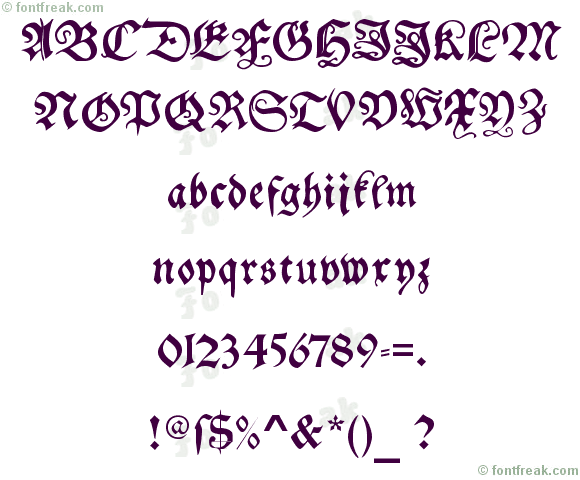
MyElectronicSchwabach
About MyElectronicSchwabach
MyElectronicSchwabach, designed by Manfred Klein, is a decorative typeface that draws inspiration from the traditional Schwabach script, infused with a modern electronic twist. This font features a distinctive, ornate style characterized by sharp angles and elaborate strokes that give it a unique flair. The stroke weight varies, showcasing a dynamic contrast that enhances its visual appeal, while the spacing is carefully balanced, ensuring readability without sacrificing aesthetic charm. The decorative elements, including pointed serifs and intricate flourishes, make it an eye-catching choice for various design applications.
This font is particularly well-suited for creative projects that require a touch of elegance and personality. It excels in use cases such as wedding invitations, where its sophisticated style can beautifully complement the romantic theme. Additionally, MyElectronicSchwabach works wonderfully for movie posters, adding a dramatic flair that captures attention and conveys a sense of intrigue. It can also enhance restaurant menus, providing an artistic touch that elevates the dining experience. Graphic designers will find this font an excellent choice for branding projects, helping to create a memorable identity that stands out in a crowded market.
The target audience for MyElectronicSchwabach includes graphic designers, small business owners, and content creators who seek a distinctive typeface to make their work more engaging. This font can easily adapt to various mediums, both digital and print, allowing for versatile applications across different platforms.
What sets MyElectronicSchwabach apart is its unique blend of traditional craftsmanship and contemporary design. It offers an artistic solution for those looking to infuse their projects with character and style. Enjoy the MyElectronicSchwabach font free download and elevate your designs with this remarkable typeface.